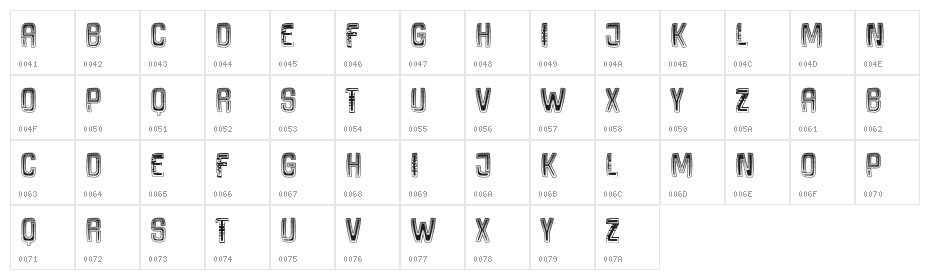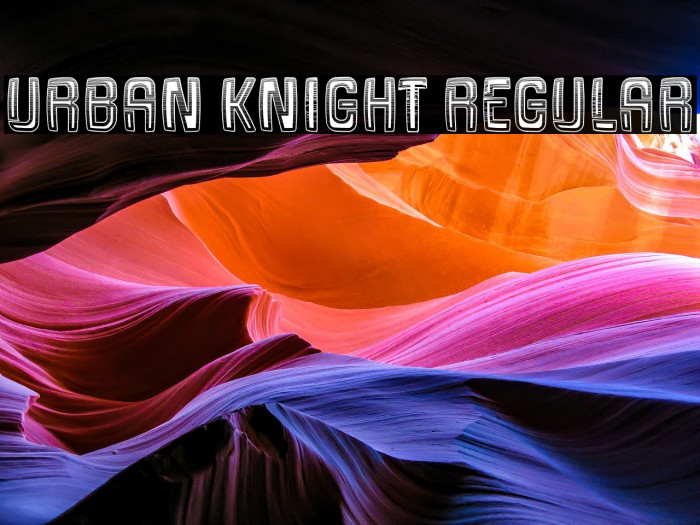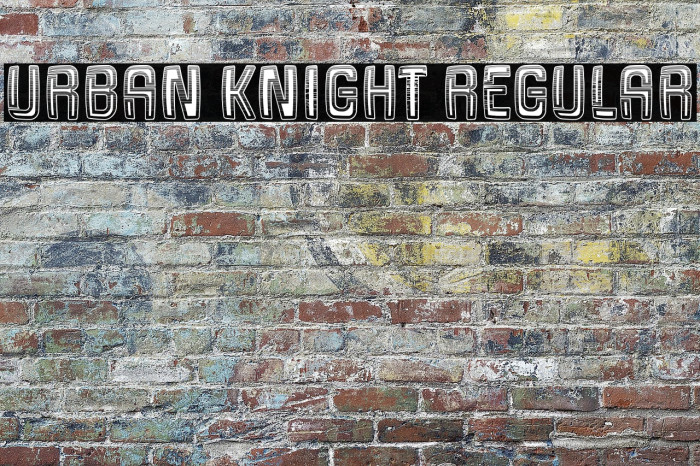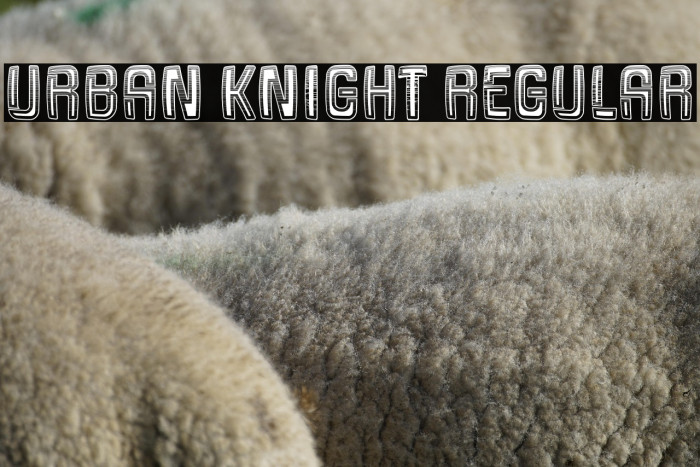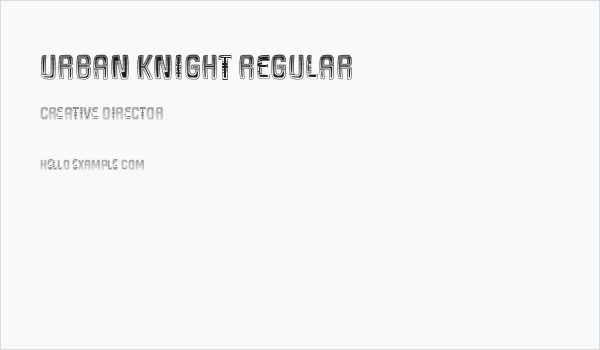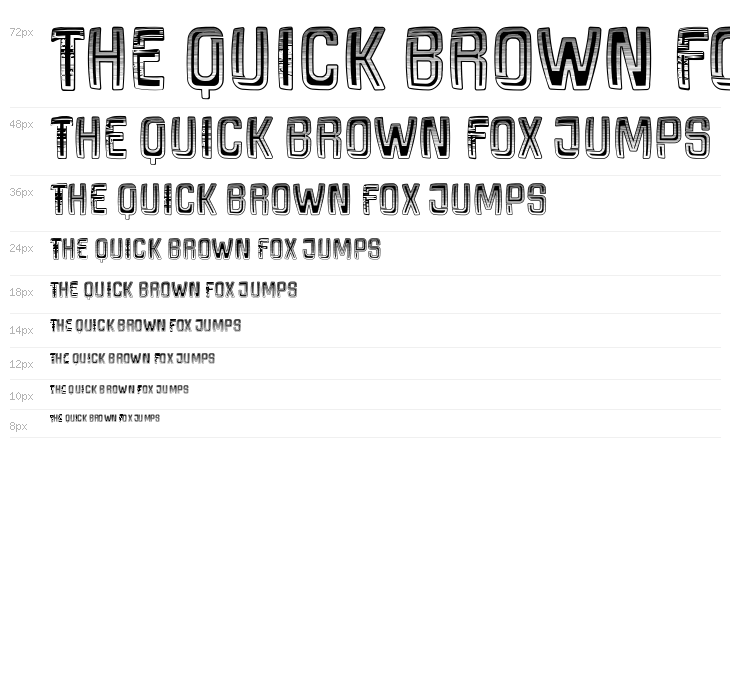
Urban Knight Regular Font
Urban Knight Regular Description
This font features a bold, urban-inspired design with a unique, layered texture that gives it a three-dimensional appearance. The letters are uppercase and exhibit a strong, industrial feel with thick strokes and a shadow effect that adds depth. The style is reminiscent of street art or graffiti, making it ideal for projects that require a modern and edgy look. The font's distinct character is enhanced by its bold outlines and intricate inner detailing, which create a striking visual impact. The overall design is both robust and dynamic, suitable for capturing attention in various creative contexts.
| Proposed Projects | Ideal for street art designs, urban-themed posters, edgy branding, and modern advertising campaigns. |